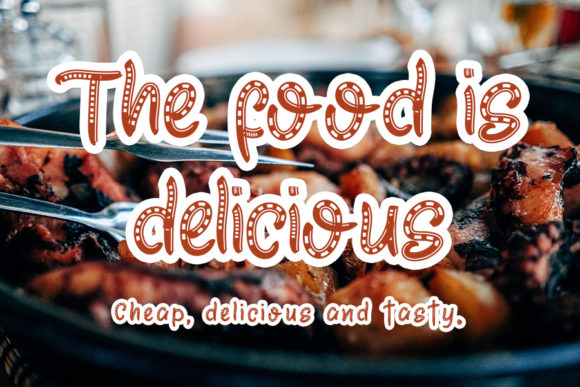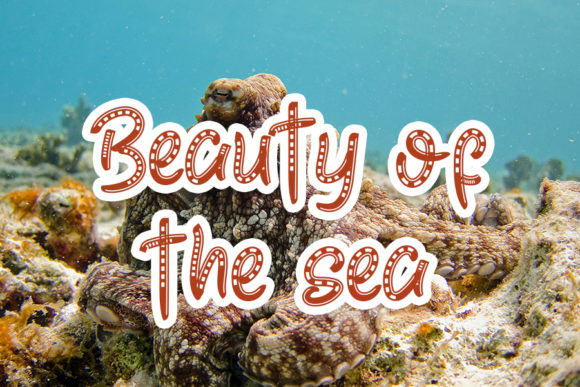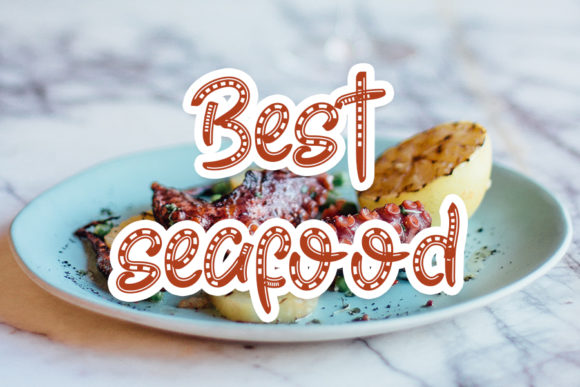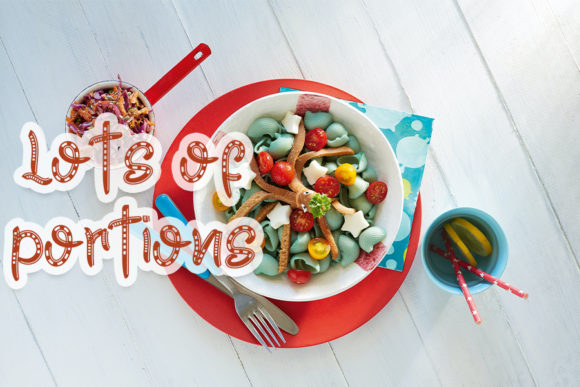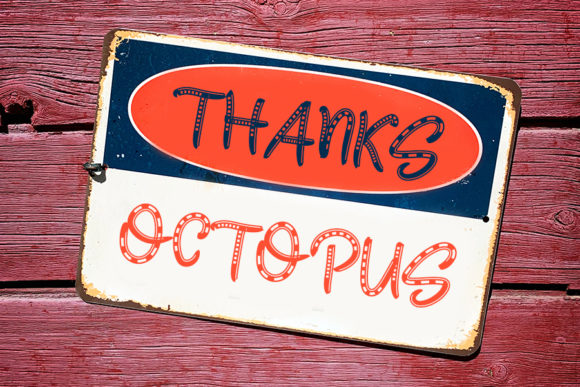
Introduction to Sea Octopus Font
As a designer, have you ever found yourself stuck in front of a blank canvas, desperately searching for the perfect font to bring your creative project to life? For many of us, this is a familiar feeling. But what if I told you that the solution is just a click away? Introducing the enchanting Sea Octopus Font, a free design resource that’s sure to captivate your audience and elevate your design game.
With its playful and approachable style, the Sea Octopus Font is perfect for designers looking to add a touch of whimsy to their work. Its high quality design makes it an ideal choice for projects that require a transparent background or a bold, eye-catching statement. Whether you’re working on a children’s book, a social media campaign, or a website design, this font is sure to bring a smile to your clients’ faces.
Key Features of Sea Octopus Font
- Unique, hand-drawn design with a transparent background, ideal for use in digital art and graphic design.
- Includes a range of characters, including uppercase and lowercase letters, numbers, and punctuation marks, making it a versatile design resource.
- Sea Octopus Font is a great choice for designers looking to add a touch of whimsy and personality to their creative projects.
Honest Review: Sea Octopus Font
As a designer, I’m always on the lookout for unique and high-quality design resources to elevate my creative projects. Recently, I had the chance to work with the Sea Octopus Font, and I must say it’s a great addition to any design arsenal.
What works well
- ✨ High-quality design: The Sea Octopus Font is meticulously crafted with attention to detail, making it perfect for designers who demand only the best.
- ✨ Transparent background: The font’s transparent background makes it easy to work with, allowing for seamless integration into various design elements.
- ⚠️ Limited font styles: While the font is well-designed, it’s limited to a single style, which may not be ideal for designers who need multiple font variations.
- ⚠️ Not suitable for all designs: The Sea Octopus Font has a unique, whimsical feel that may not be suitable for all design projects, such as corporate or formal designs.
Overall, I’m impressed with the Sea Octopus Font’s high quality and free download availability. While it may have some limitations, it’s a great resource for designers working on creative projects that require a touch of whimsy and playfulness.
To get the most out of the Sea Octopus Font, experiment with different font sizes, colors, and styles. Use the transparent background feature to create visually appealing designs. Also, consider combining the Sea Octopus Font with other design elements to create a unique and eye-catching look.
The Sea Octopus Font is ideal for a variety of creative projects, including graphic design, digital art, and typography. Its high quality and transparent background make it a versatile design resource that can be used in a range of applications, from posters and flyers to business cards and logos.